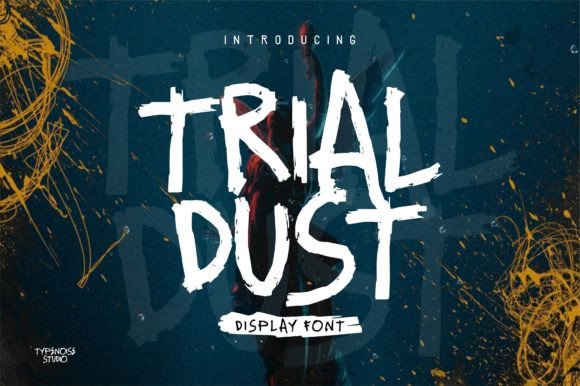
Trial Dust: A Premium Display Typeface for Modern Branding
Trial Dust is a standout amongst professional fonts and typefaces expertly crafted for design enthusiasts who need a distinct voice for their business. This distinguished font melds classic inspiration with a modern twist, presenting a unique opportunity to elevate your brand identity from the ground up. As a small business owner, I know that choosing the right Display typography can be the difference between a logo that gets ignored and one that sticks in a customer's mind. When you are building a brand from scratch, every visual element must work together to build trust, and Trial Dust offers the perfect balance of character and readability.
Trial Dust for Bakery Packaging and Product Labels
When you apply Trial Dust to your product labels, this distinguished font melds classic inspiration with a modern twist, presenting a sophisticated look that elevates even simple goods. Imagine walking into a boutique bakery or a local coffee shop; the packaging tells a story before the customer even takes a bite. Using Trial Dust on jars of honey, bags of coffee beans, or boxes of handmade soaps creates an immediate sense of quality. The font's unique texture and structure make it ideal for packaging design where you want to stand out on a crowded shelf without looking cluttered. It works beautifully as a headline on a sticker label, drawing the eye while maintaining a clean, professional aesthetic that suggests your product is premium.
Trial Dust for Café Menus and Food Flyers
For food and beverage businesses, Trial Dust serves as a powerful tool to make daily specials and menu items feel exclusive and inviting. This standout amongst professional fonts and typefaces expertly crafted for design enthusiasts brings a touch of elegance to digital menus and printed flyers alike. Whether you are listing artisanal pastries or seasonal cocktails, using Trial Dust for section headers adds a layer of personality that generic fonts simply cannot match. It helps create a cohesive brand identity that feels warm yet polished, encouraging customers to linger over the menu and appreciate the care you put into your offerings.
Trial Dust for Boutique Logos and Business Cards
If you own a clothing boutique or a handmade jewelry shop, Trial Dust can transform a standard logo into a memorable symbol of your brand. This distinguished font melds classic inspiration with a modern twist, presenting a versatile style that fits perfectly on business cards, storefront signage, and shopping bags. A strong logo design requires a typeface that is legible at small sizes but impactful when enlarged, and Trial Dust delivers exactly that. By incorporating this Display font into your primary branding, you signal to potential clients that you pay attention to detail, which is a crucial factor in building credibility in the competitive retail market.
Trial Dust for Wedding Invitations and Elegant Event Materials
Service providers like event planners or wedding photographers often need typography that conveys romance and professionalism simultaneously. Trial Dust is a standout amongst professional fonts and typefaces expertly crafted for design enthusiasts who specialize in high-end events. Its classic roots provide a timeless feel, while its modern execution ensures it looks fresh in contemporary designs. Use Trial Dust for wedding invitation headers, ceremony programs, or thank-you cards to give your clients a luxurious unboxing experience. The font's distinct character adds a narrative depth to your materials, making your services feel more personalized and valuable.
Trial Dust for Social Media Graphics and Digital Ads
In the fast-paced world of social media, capturing attention within seconds is vital, and Trial Dust offers the visual punch needed to stop the scroll. This distinguished font melds classic inspiration with a modern twist, presenting a bold presence that works exceptionally well on Instagram posts, Pinterest pins, and Facebook ads. When designing social media graphics, you need headlines that pop against images without sacrificing readability. Trial Dust acts as a perfect accent font for promotional banners, helping to highlight sales, new arrivals, or limited-time offers. Its unique style ensures your content stands out in a feed dominated by generic sans-serif text.
Trial Dust for Website Banners and Hero Sections
Your website is often the first point of contact for new customers, and the typography sets the tone for the entire user experience. Trial Dust is a standout amongst professional fonts and typefaces expertly crafted for design enthusiasts looking to create a strong first impression online. Placing this Display font in your website's hero section or main navigation can instantly communicate your brand's personality. Whether you are a startup founder or an independent creator, using Trial Dust for web design elements helps establish authority and style. It pairs effectively with cleaner body text, creating a balanced hierarchy that guides visitors through your site effortlessly.
Trial Dust Font Pairing Strategies for Small Businesses
To maximize the impact of Trial Dust, it is essential to pair it with a complementary typeface that supports rather than competes with it. This distinguished font melds classic inspiration with a modern twist, presenting a complex texture that needs a calm partner to ensure readability. For most business applications, pairing Trial Dust with a clean sans serif font or a simple serif font for body text is the best approach. This combination allows the decorative nature of the Display font to shine in headlines while keeping your product descriptions, terms of service, and contact information easy to read. Good font pairing is the secret to a professional design asset collection that looks cohesive across all platforms.
Ultimately, selecting the right typeface is about more than just aesthetics; it is about communicating value and reliability to your target audience. Trial Dust provides the distinctive character needed to differentiate your business in a saturated market. By integrating this font into your logos, packaging, marketing materials, and digital presence, you create a unified visual language that customers will recognize and trust. Whether you are launching a new product line or refreshing an existing brand, Trial Dust offers the professional polish required to succeed in today's competitive landscape.